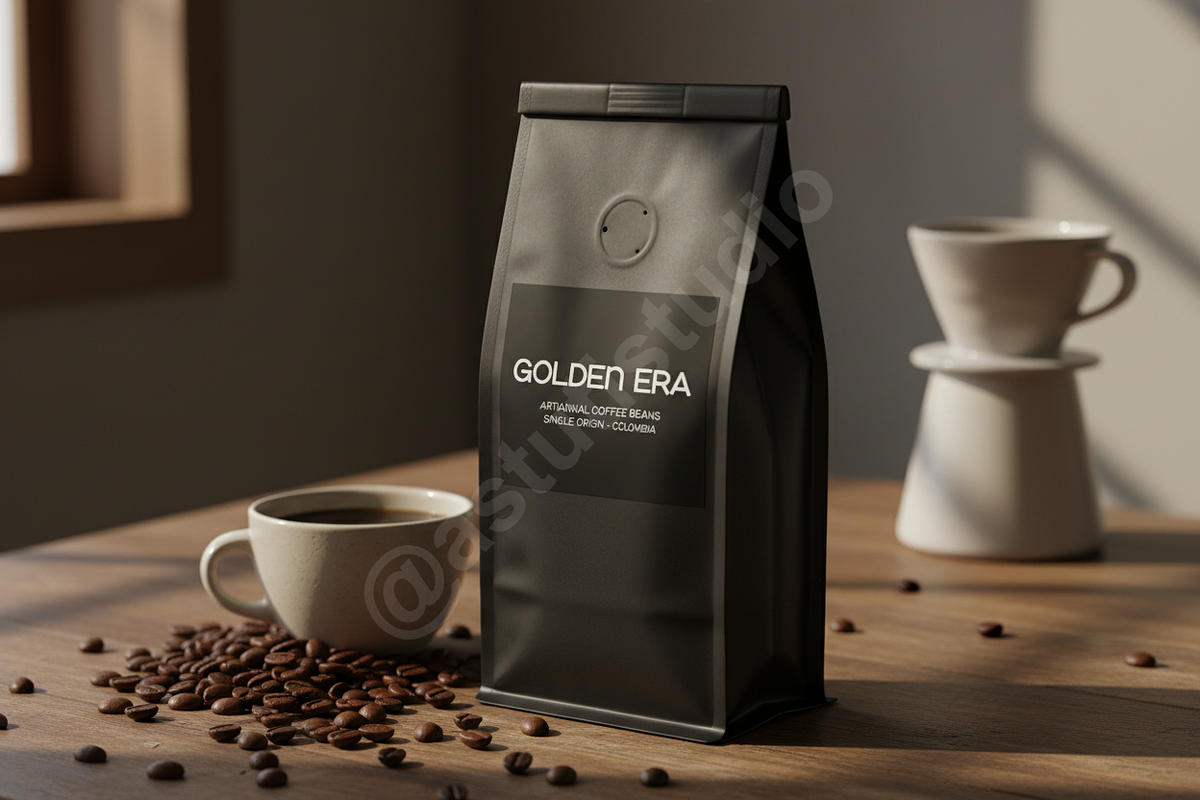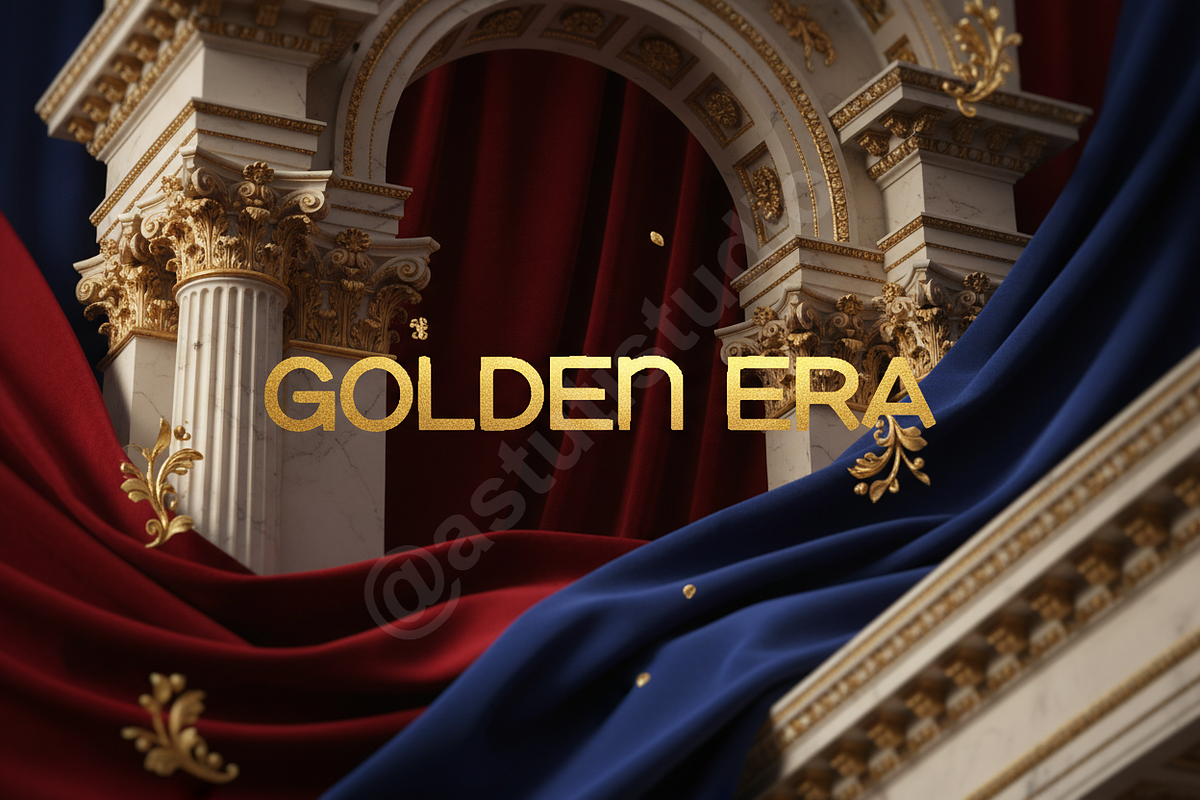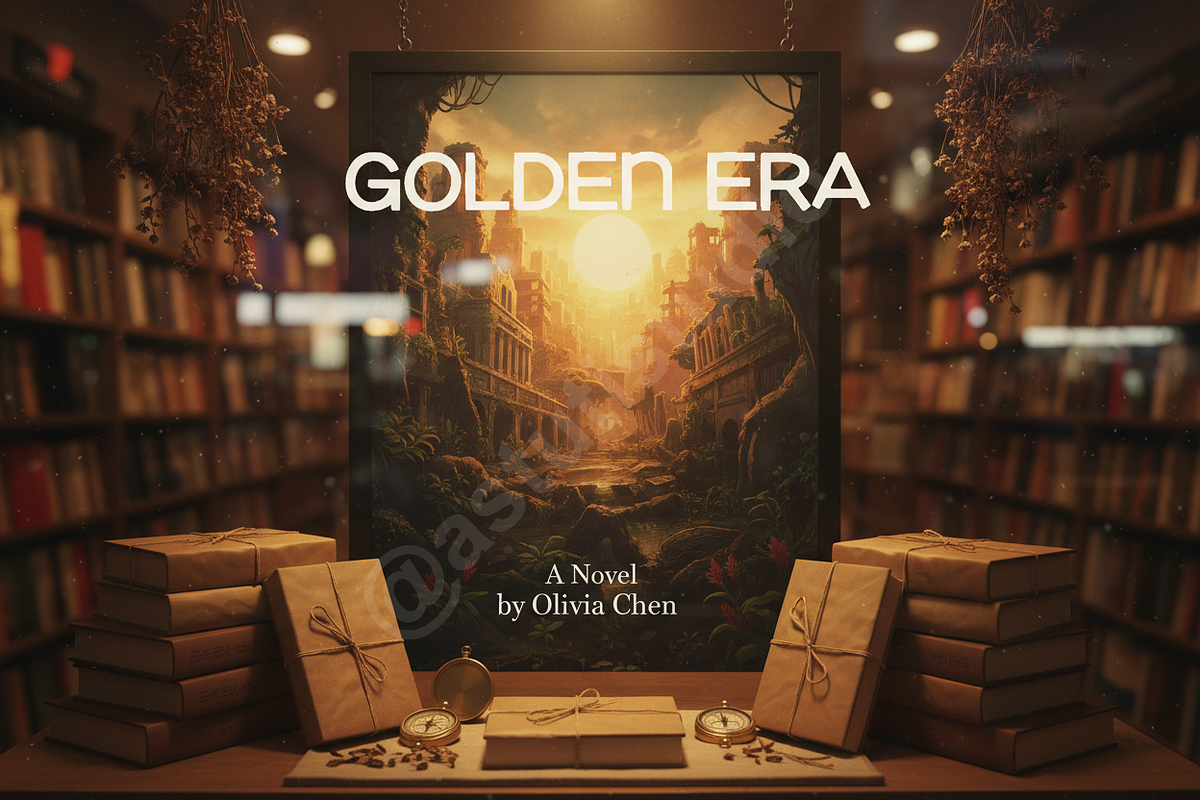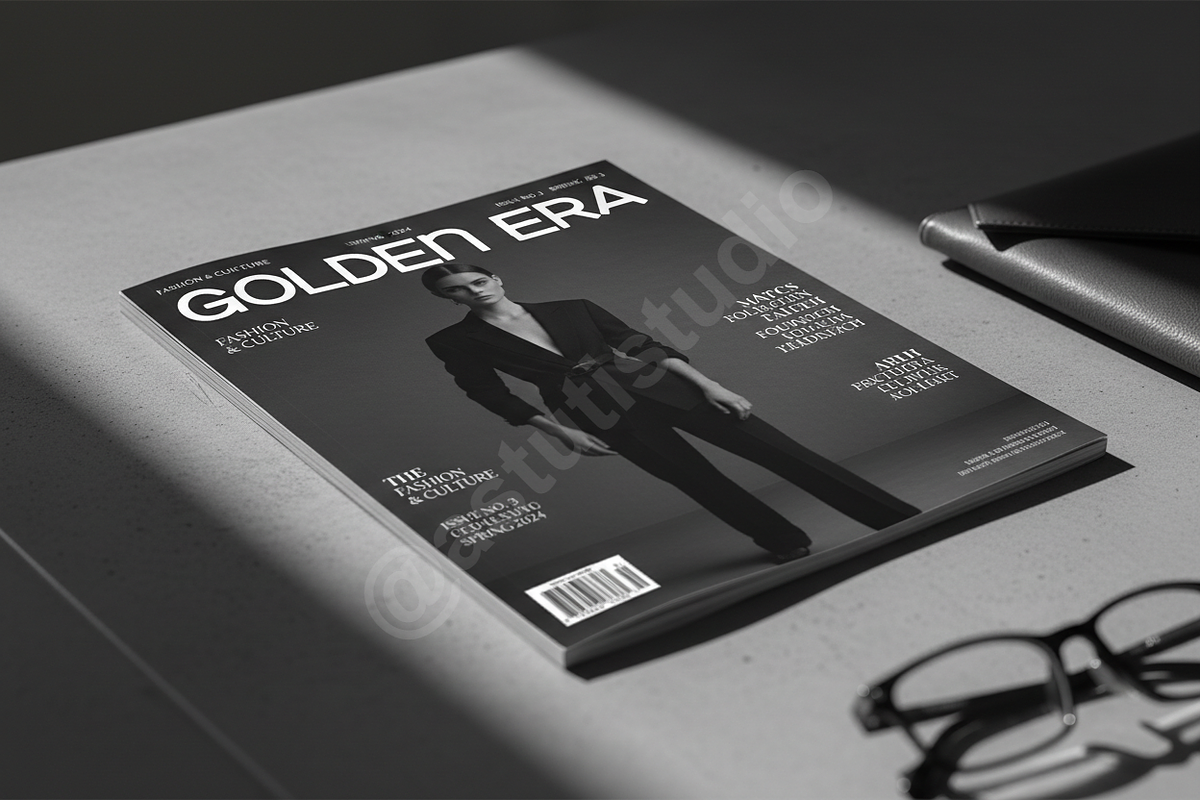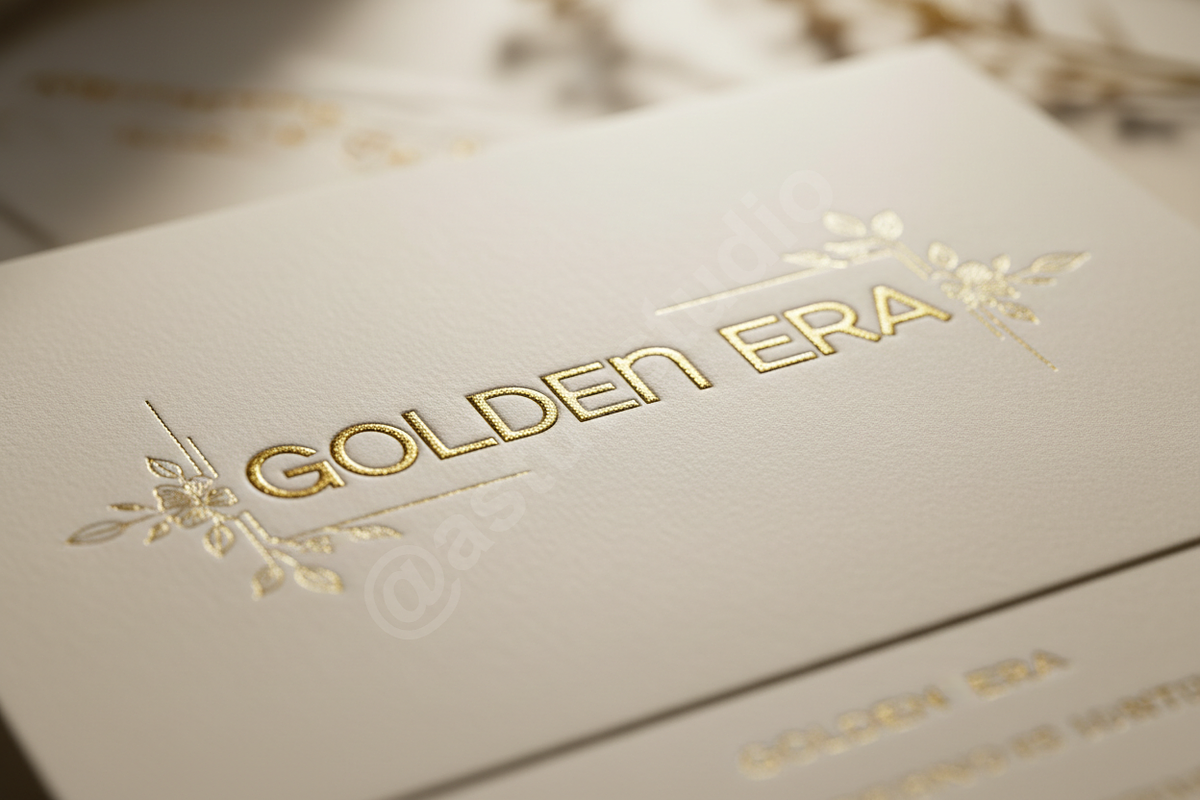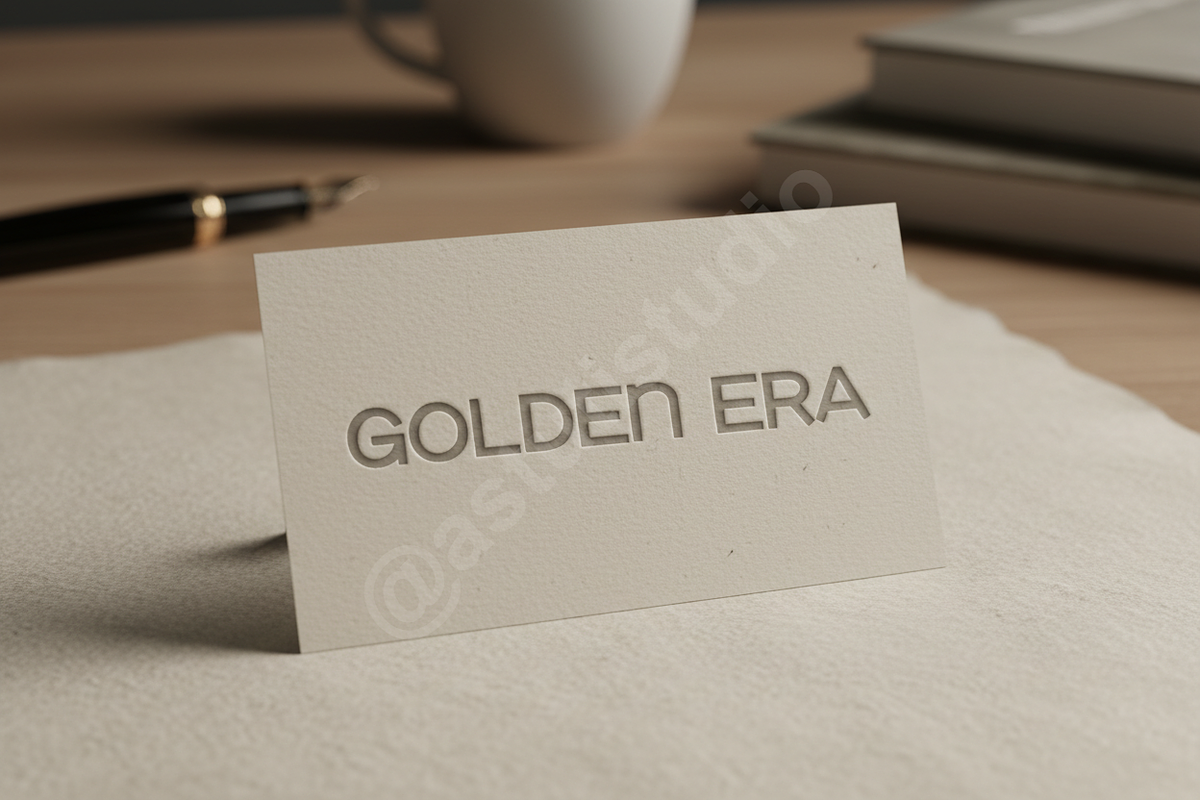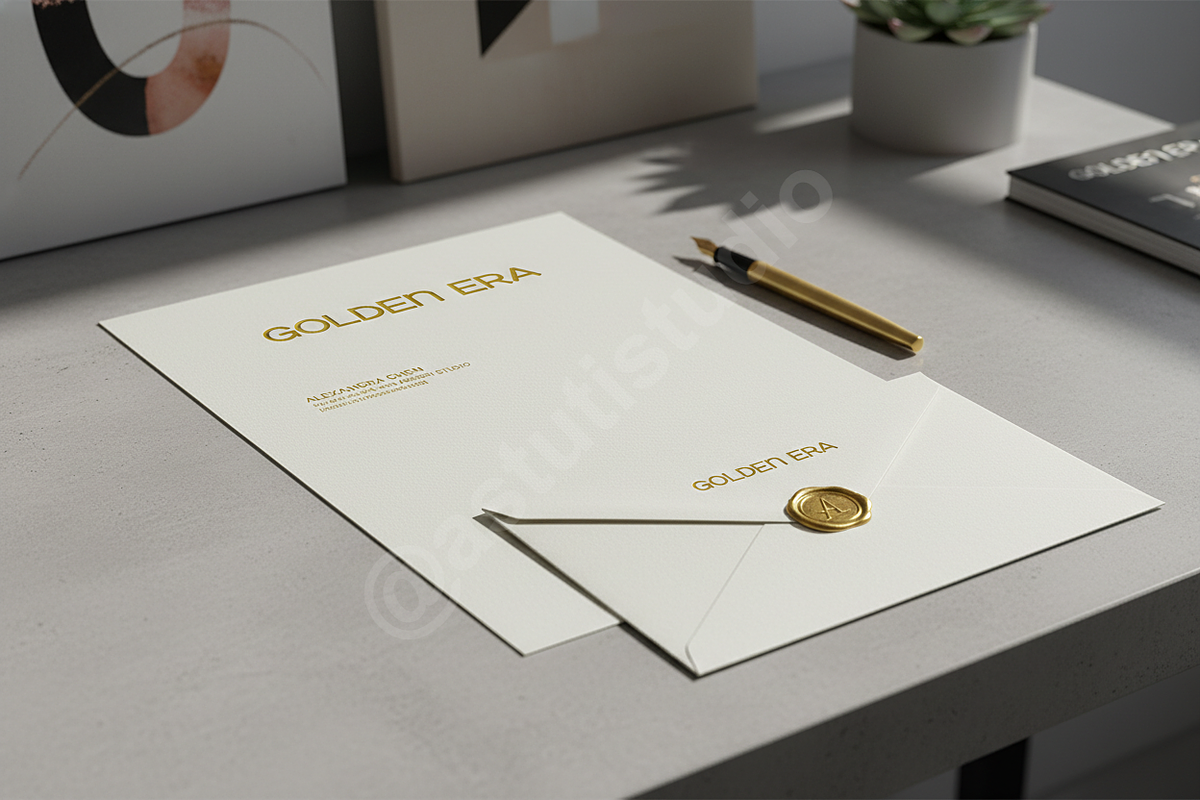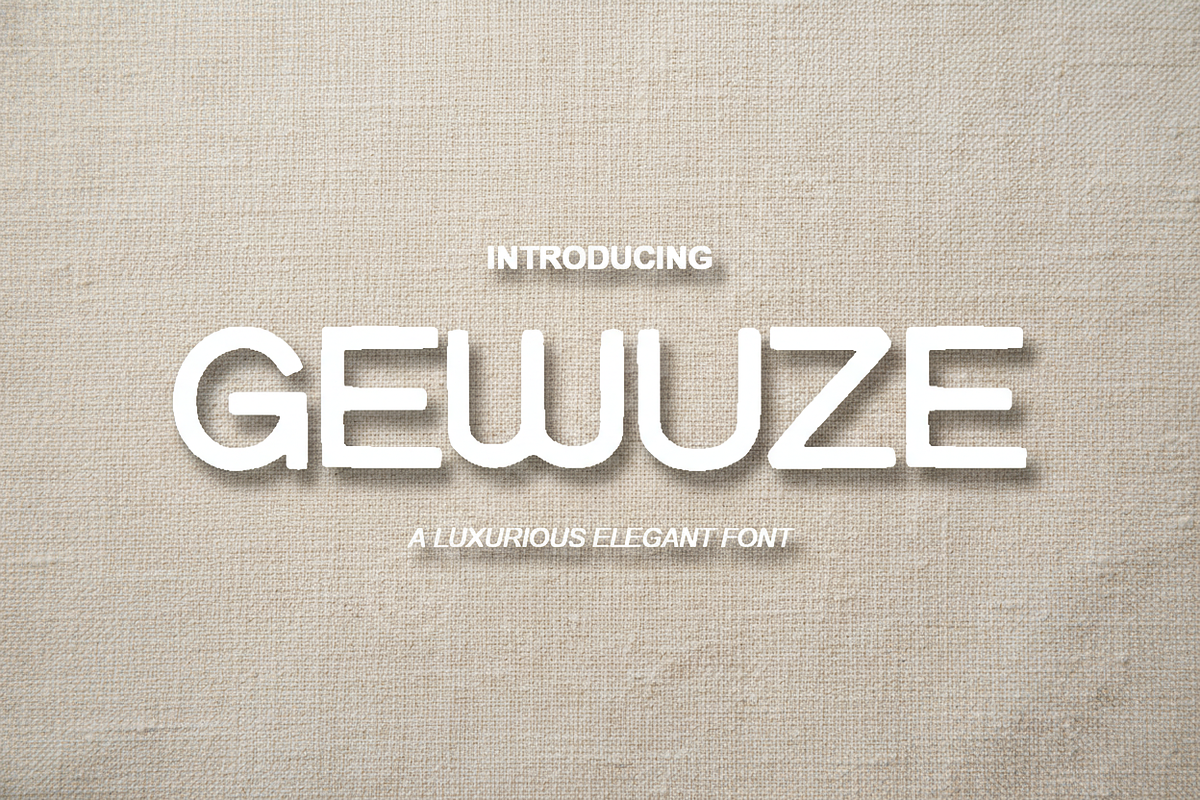
Gewuze: Modern Luxury High-Contrast
Introducing Gewuze, a sophisticated and highly refined modern serif typeface designed for the discerning creative professional. Gewuze captures the essence of luxury through its dramatic high-contrast structure, elegant curves, and razor-sharp terminals. This typeface effortlessly bridges classic typographic heritage with contemporary display sensibilities, making it the definitive choice for projects demanding prestige and visual impact.
Gewuze is crafted to elevate your design work across various premium mediums:
- Ultimate Luxury Branding: Perfect for high-end logos, corporate identities, and exclusive product packaging.
- High-Fashion Editorial: Ideal for magazine headlines, covers, and layout design where elegance is paramount.
- Premium Social Media: Ensures your online content maintains a professional and exclusive aesthetic.
- Extensive Multilingual Support: Includes a broad range of characters to serve global campaigns.
- Full set of Uppercase and Lowercase Characters
- Numerals and Comprehensive Punctuation
- Extensive Stylistic Alternates and Decorative Ligatures